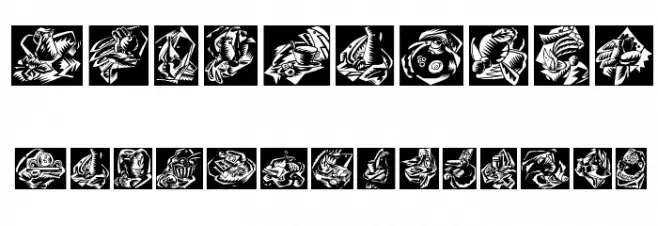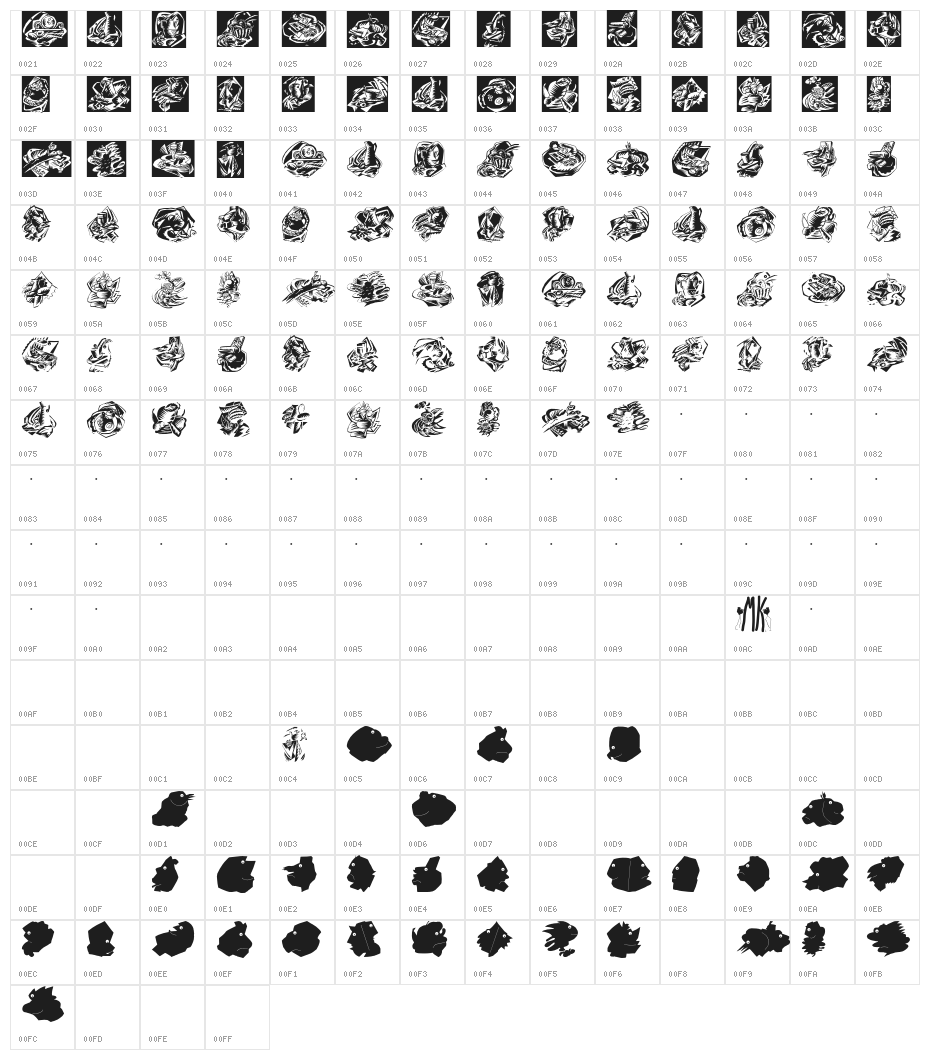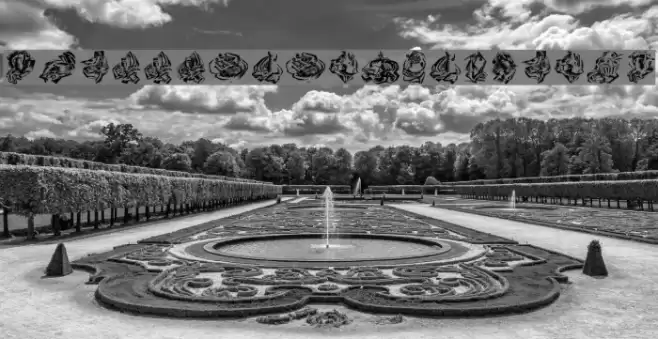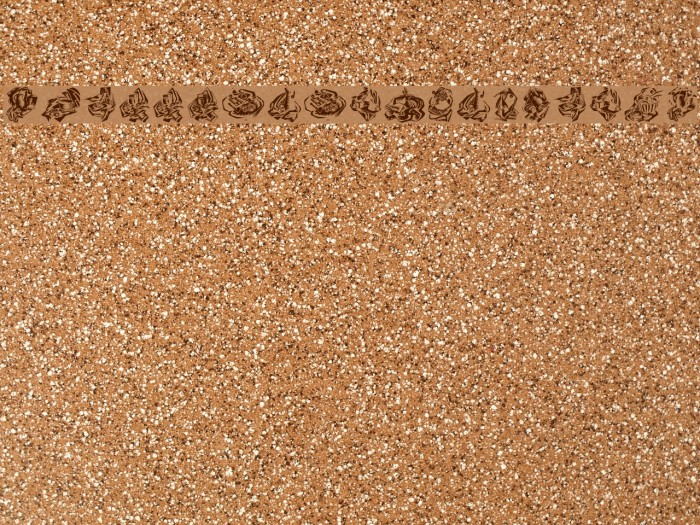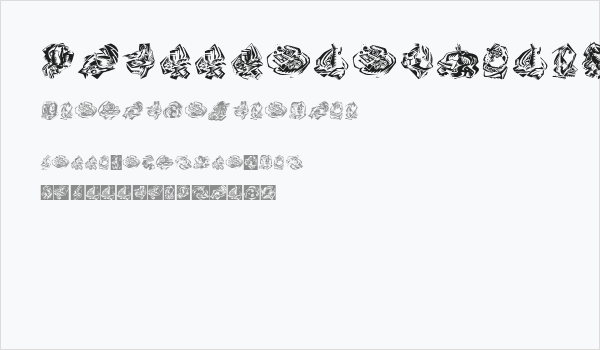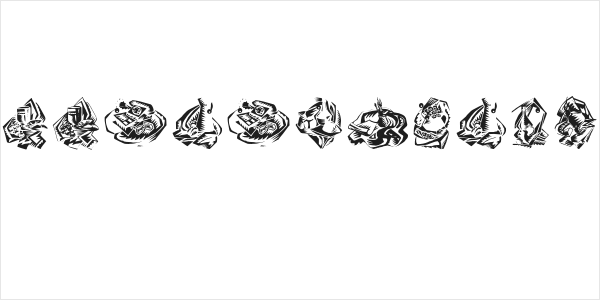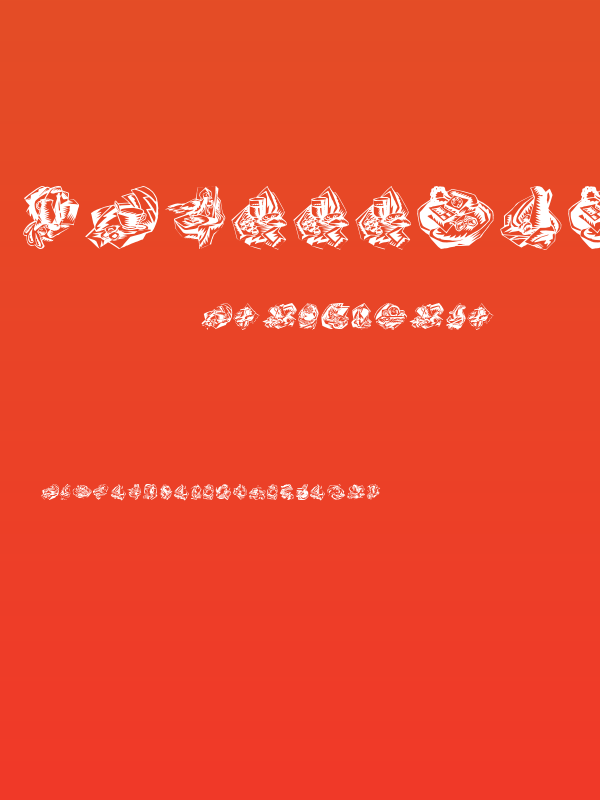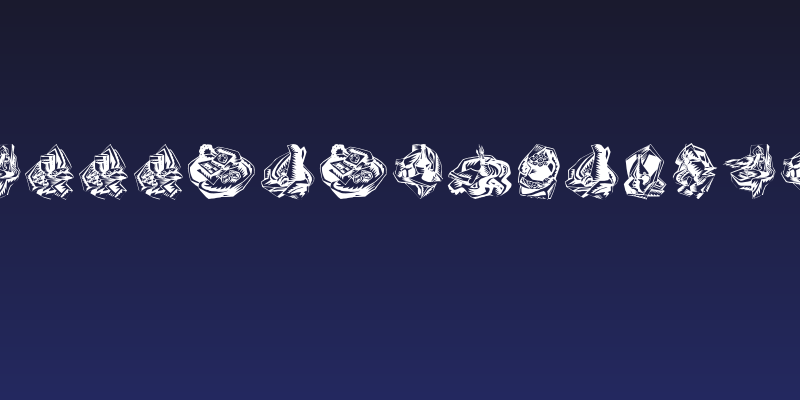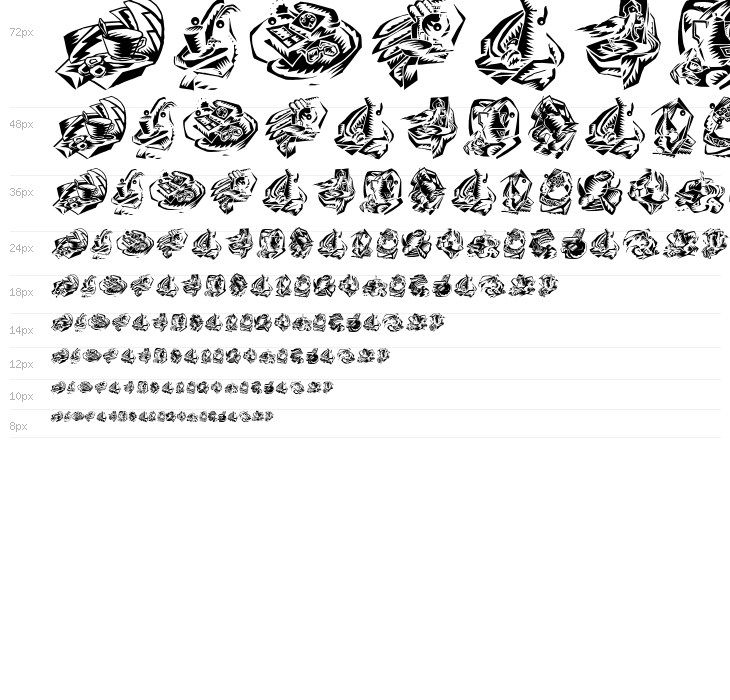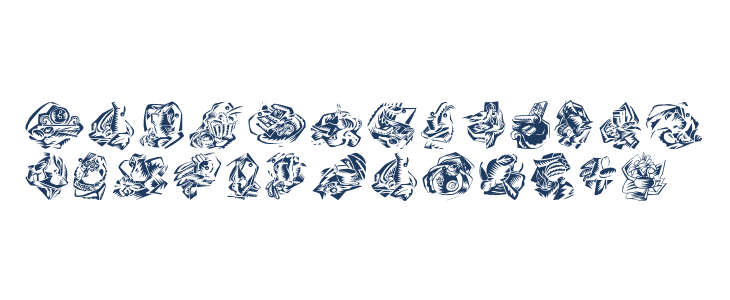
StillLebenFourKinds Font
StillLebenFourKinds Description
This font is a highly decorative and artistic representation, featuring intricate and abstract designs that resemble a blend of organic and geometric forms. Each character is uniquely crafted, with a high level of detail that suggests a hand-drawn or engraved style. The letters are not immediately recognizable as traditional alphabetic forms, instead resembling artistic symbols or emblems. This font is more of an art piece than a functional typeface, making it suitable for creative and expressive projects where the visual impact is more important than readability. The characters are bold and complex, with a dynamic interplay of positive and negative space, creating a striking visual effect.
| Use Case | Logos, Artistic projects |
| Proposed Projects | Ideal for art projects, creative branding, album covers, or any design work where visual impact is prioritized over readability. |